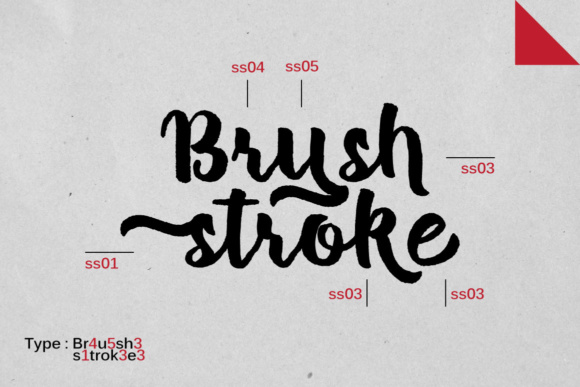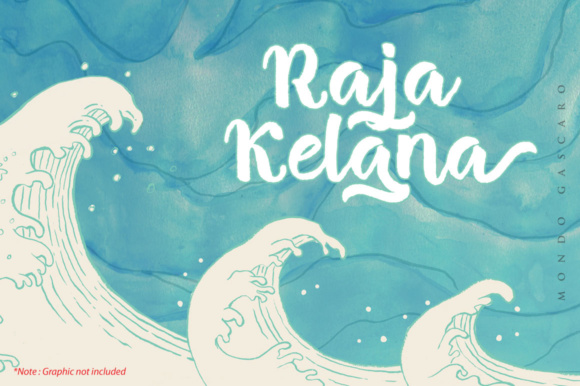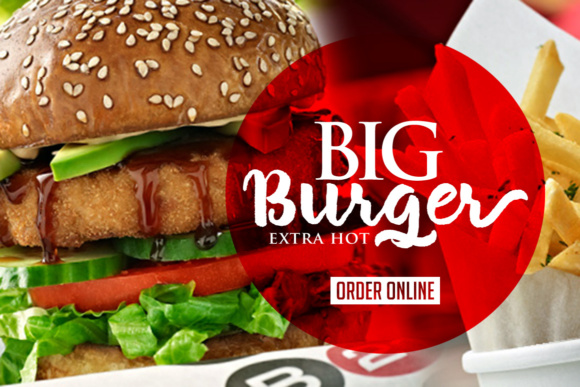
Introducing Brush Stroke Font: A Textured and Handmade Typography Experience
Are you looking for a font that adds a touch of natural elegance and handmade charm to your designs? Look no further than Brush Stroke Font! This beautifully crafted font is designed to bring a sense of texture and authenticity to your typography, making it perfect for a wide range of creative projects.
What is Brush Stroke Font?
Brush Stroke Font is a textured brush font that boasts a unique, handmade look. Its natural, irregular baseline gives it a organic feel that’s reminiscent of hand-painted signs and artistic illustrations. This font is perfect for designers and crafters who want to add a personal touch to their work.
Key Features of Brush Stroke Font
- Natural, handmade look: Brush Stroke Font has a unique texture that gives it a genuine, hand-crafted feel.
- Irregular baseline: The font’s irregular baseline adds to its organic, handmade charm.
- Highly versatile: Brush Stroke Font is suitable for a wide range of design projects, from title designs and invitations to book titles, stationery, and quotes.
- Perfect for branding: The font’s unique texture and handmade look make it an excellent choice for branding and packaging design.
Use Cases for Brush Stroke Font
Brush Stroke Font is an incredibly versatile typography solution that can be used in a variety of creative projects. Here are some ideas to get you started:
- Title designs: Use Brush Stroke Font to create eye-catching title designs for books, movies, and other creative projects.
- Invitations: Add a touch of elegance and sophistication to your invitations with Brush Stroke Font.
- Book titles: Use the font to create beautiful, eye-catching book titles that will stand out on bookshelves.
- Stationery: Brush Stroke Font is perfect for designing stationery, including greeting cards, letterheads, and more.
- Quotes: Use the font to create inspiring and thought-provoking quote designs that will resonate with your audience.
- Branding: Brush Stroke Font is an excellent choice for branding and packaging design, adding a touch of handmade charm to your products.
Why Choose Brush Stroke Font?
With so many fonts available, why choose Brush Stroke Font? Here are just a few reasons why this font stands out:
- Unique texture: Brush Stroke Font’s textured, handmade look sets it apart from other fonts.
- High-quality design: The font is carefully crafted to ensure that it looks great in any design.
- Versatility: Brush Stroke Font can be used in a wide range of creative projects, making it a valuable addition to any designer’s toolkit.
Brush Stroke Font is a beautifully crafted, textured brush font that’s perfect for designers and crafters who want to add a touch of handmade charm to their work. With its natural, irregular baseline and highly versatile design, this font is suitable for a wide range of creative projects. Whether you’re designing title designs, invitations, book titles, stationery, quotes, or branding materials, Brush Stroke Font is an excellent choice. So why wait? Download Brush Stroke Font today and start adding a touch of elegance and sophistication to your designs!